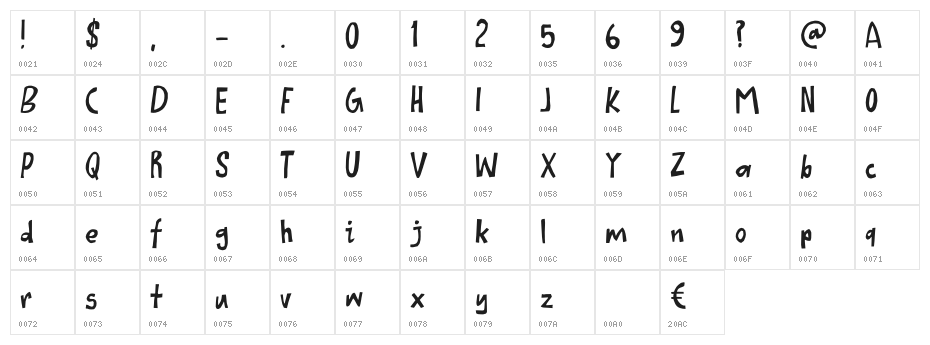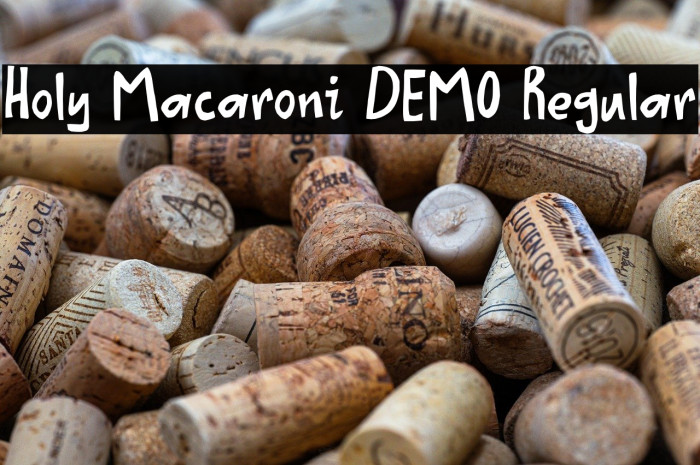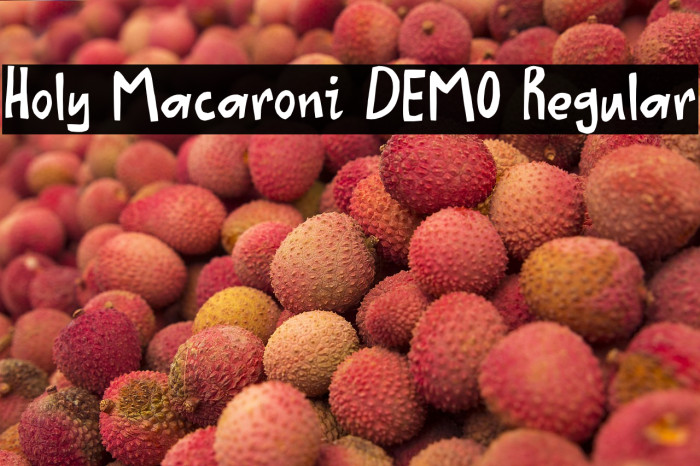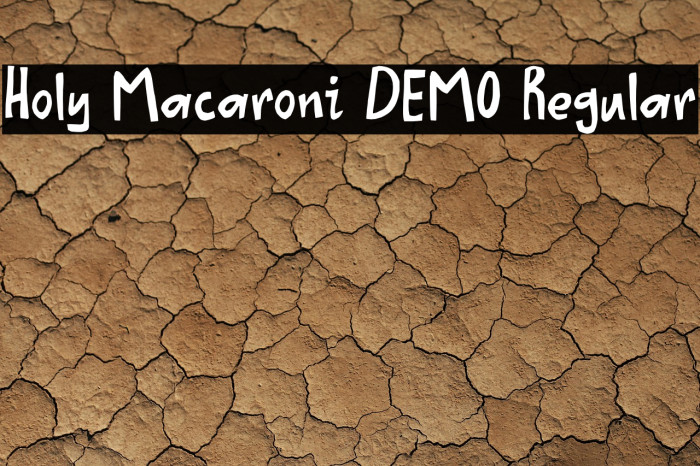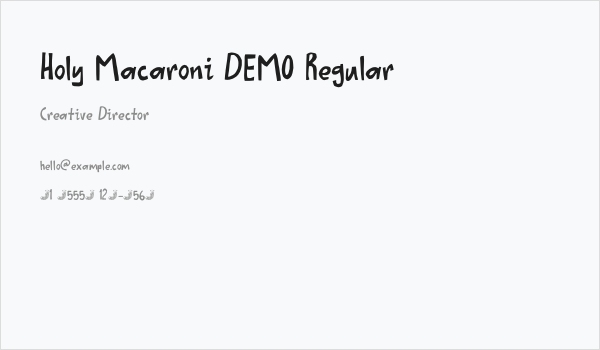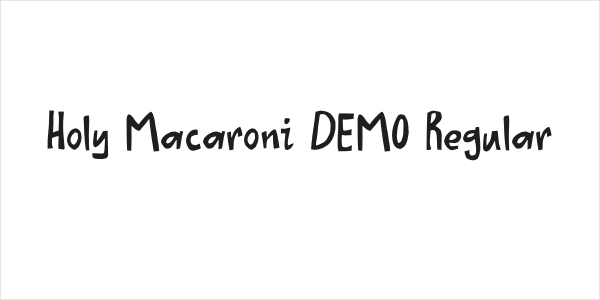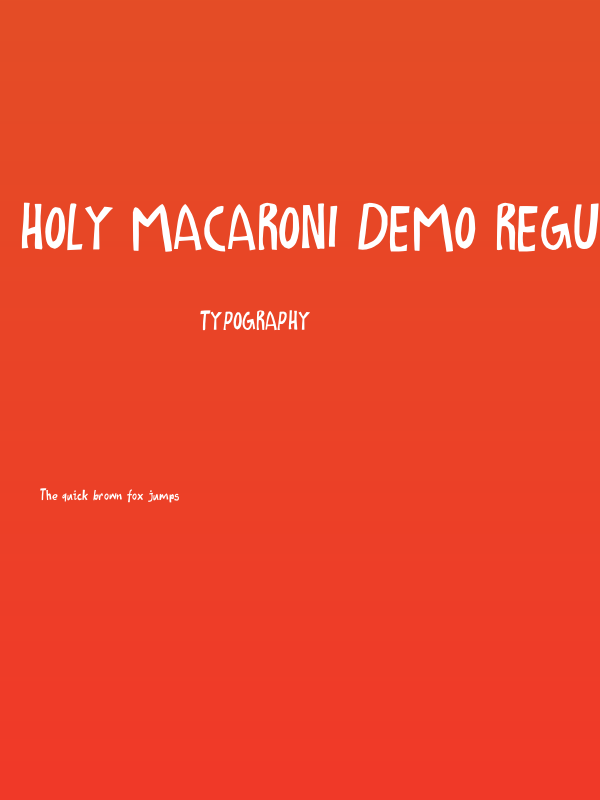
Holy Macaroni DEMO Regular Font
Holy Macaroni DEMO Regular Description
This playful and whimsical font features a hand-drawn, cartoonish style with irregular strokes and a lively appearance. The uppercase and lowercase letters exhibit a quirky, uneven baseline, adding to its charm and informal vibe. The numerals and special characters continue this playful theme, with some characters incorporating macaroni-like shapes, enhancing its unique and fun aesthetic. The font's overall look is casual and friendly, making it suitable for projects that require a lighthearted and approachable tone.
| Overall Style | Whimsical, Playful, Casual |
| Use Case | Logos, Posters, Invitations |